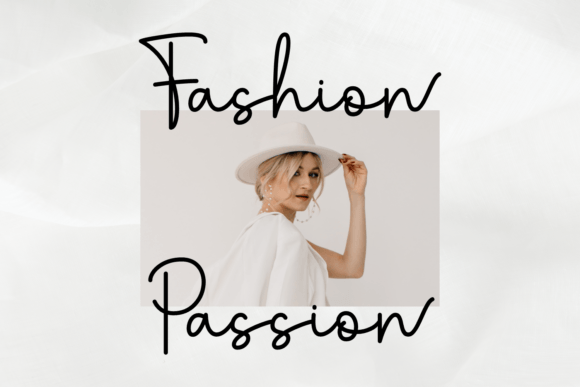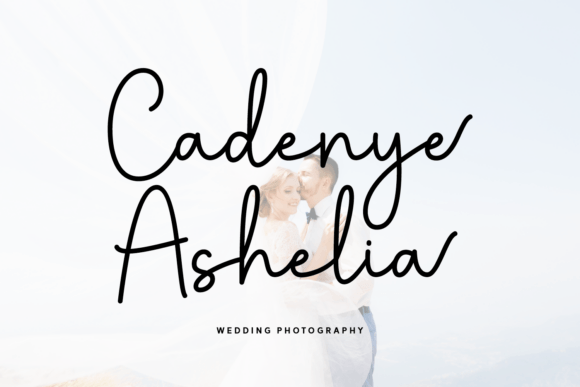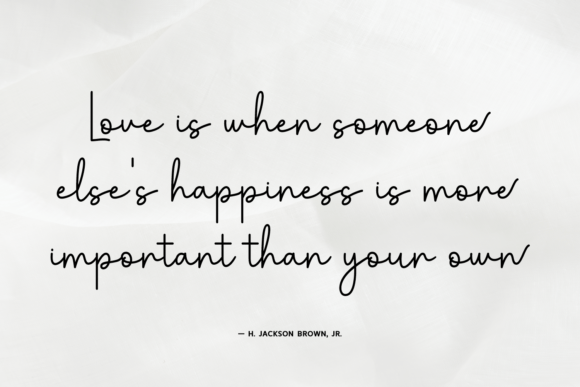
Introduction to Cardlige Font
As a designer, you know that finding the right font can be the difference between a project that shines and one that falls flat. Remember that moment when you stumbled upon the perfect script font that made your design come alive? For me, it was the discovery of the Cardlige Font – a beautiful, minimalistic handwritten script font that has become a staple in my design arsenal.
What sets the Cardlige Font apart is its high-quality, elegant design that exudes simplicity and sophistication. Its clean strokes and natural flow make it perfect for creating a personal touch in your creative projects, whether it’s for branding, social media posts, or stylish stationery. As a valuable design resource, the Cardlige Font is available for free download, allowing designers to experiment and push the boundaries of their creativity.
Key Features of Cardlige Font
- High-quality design resource ideal for creative projects, with a unique and stylish aesthetic.
- Unique characteristics include its elegant, handwritten style and subtle flair, making it perfect for adding a personal touch to designs.
Honest Review: Cardlige Font
I recently had the chance to work with the Cardlige Font for a creative project and I must say, it’s been a game-changer. The high-quality design makes it perfect for any design resource that needs a unique touch.
- ✨ The transparent background makes it easy to use in various design scenarios.
- ✨ The font is highly customizable, making it perfect for creative projects that require a specific look and feel.
- ⚠️ The font may not be suitable for projects that require a lot of text, as it can be quite elaborate and may be difficult to read in large quantities.
- ⚠️ The font is not as versatile as some other design resources, which may limit its use in certain creative projects.
Overall, I’m really impressed with the Cardlige Font. It’s a high-quality design resource that’s perfect for creative projects that require a unique touch. While it may have a few limitations, it’s definitely worth considering for your next design project.
Designing with Cardlige Font
The Cardlige Font is a versatile design resource that can elevate your high-quality creative project. It’s available for free download and can be used for a variety of purposes.
Tips for Getting the Most Out of Cardlige Font
When using the Cardlige Font, keep in mind that it’s a high-quality font that works well in a variety of design contexts. Experiment with different font sizes, colors, and arrangements to get the most out of it.
Common Use Cases for Cardlige Font
The Cardlige Font is commonly used in creative projects, such as graphic design, logo creation, and typography. It’s also used in business presentations and documents to add a touch of professionalism and style.